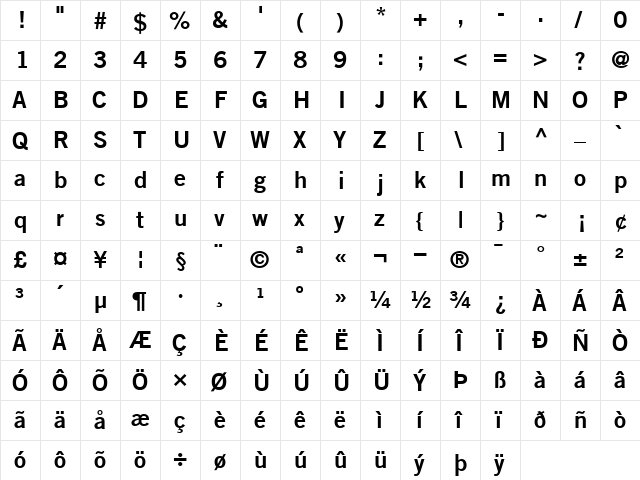
TradeGothicNo.2 Bold
Design Context for TradeGothicNo.2 Typeface
TradeGothicNo.2 has the quiet confidence of well-executed sans-serif typography: versatile, unobtrusive, and dependable at any size. The heavy weight commands attention and anchors typographic hierarchies.
Well-suited to navigation labels, product packaging, and anywhere legibility at scale is essential.
Font Pairing: Use TradeGothicNo.2 for headlines alongside a lighter-weight sans or serif for body copy to establish clear visual hierarchy.
Pro Tip: Use TradeGothicNo.2 for UI labels, navigation, and short-form body copy where clean legibility is the priority.